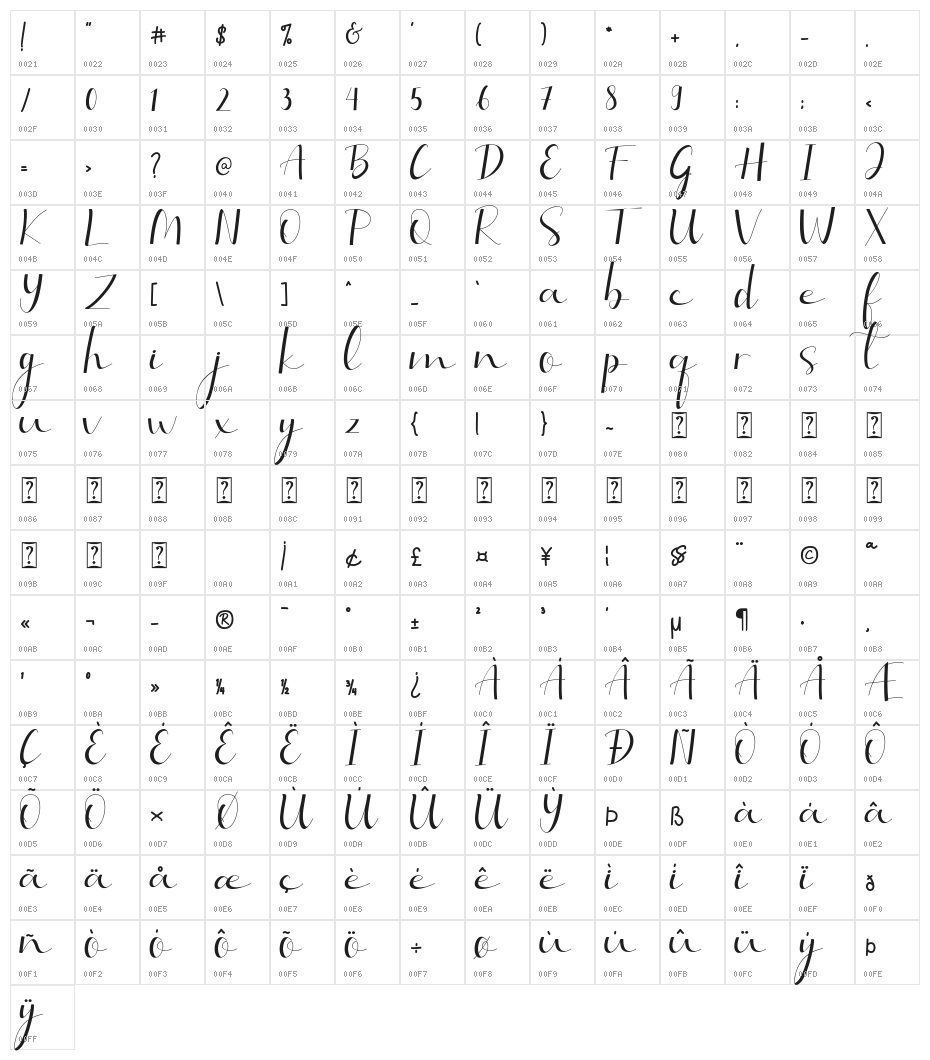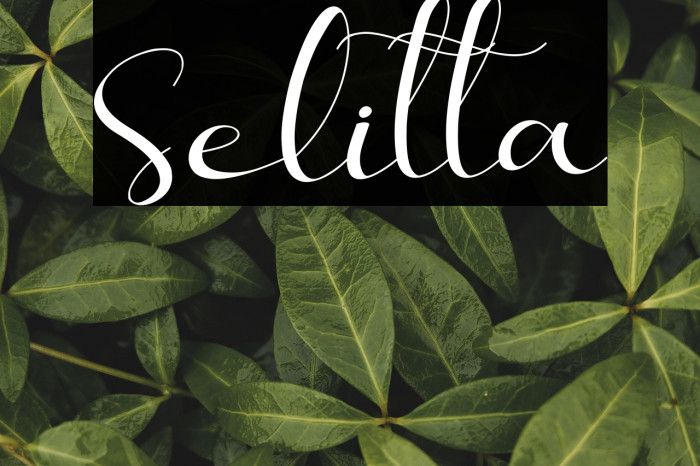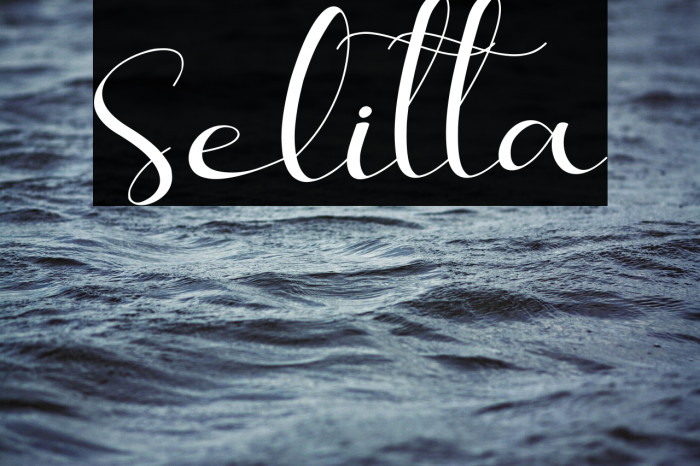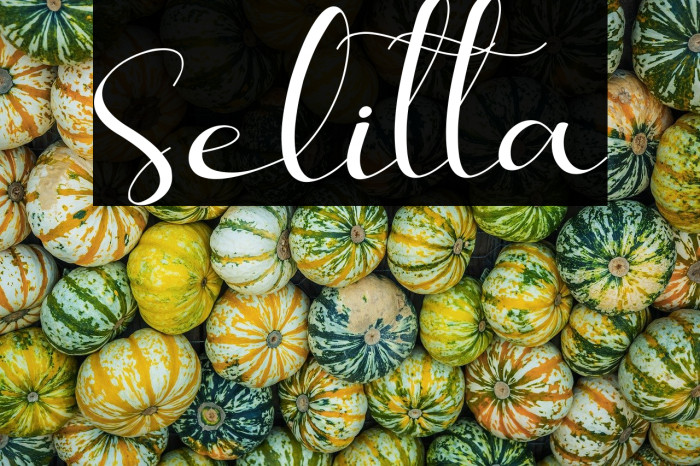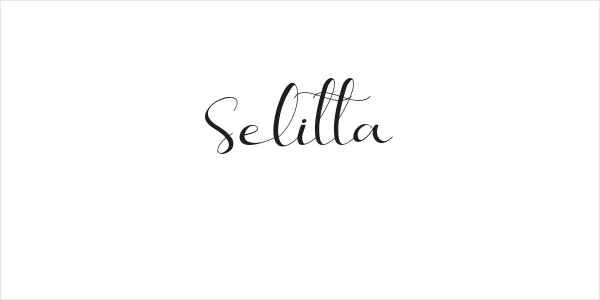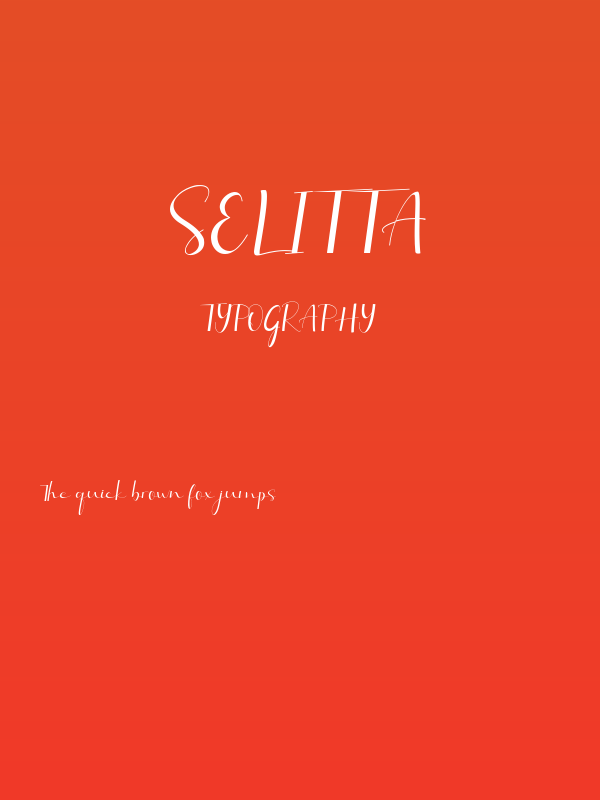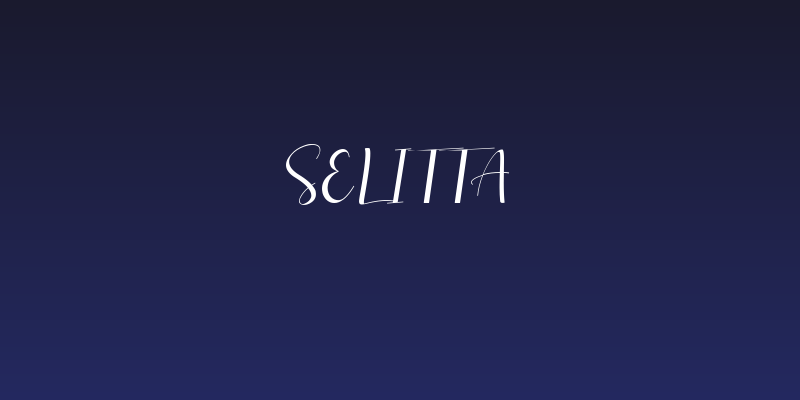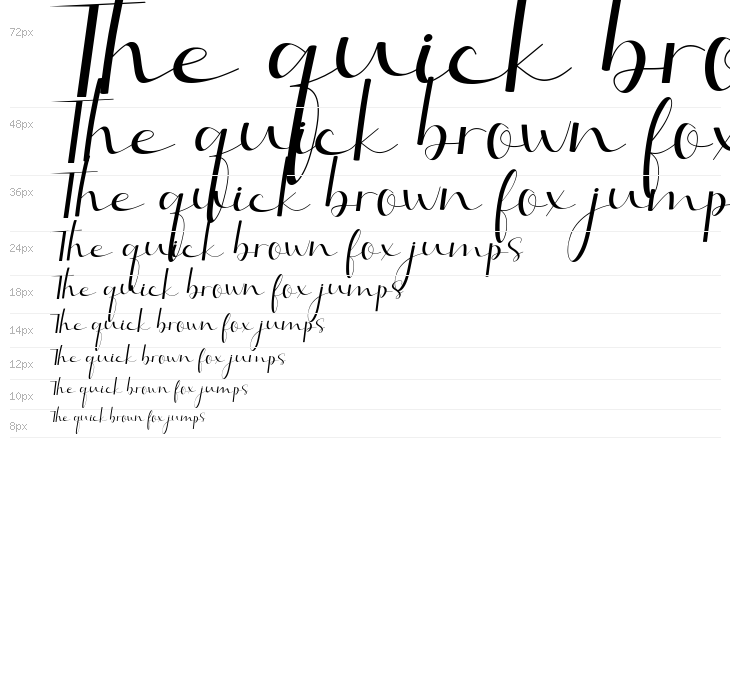
Selitta Font
Selitta Description
This font features an elegant and flowing script style, characterized by its smooth, cursive strokes and graceful curves. The uppercase letters exhibit a sophisticated flair with elongated lines and subtle loops, while the lowercase letters maintain a consistent, fluid motion. The numerals are designed with a similar elegance, offering a cohesive look throughout. Special characters are thoughtfully integrated, enhancing the font's versatility. This typeface exudes a sense of refinement and artistic expression, making it suitable for a variety of creative applications.
| Overall Style | Elegant, Artistic |
| Proposed Projects | Ideal for wedding invitations, greeting cards, branding, and elegant packaging design. |